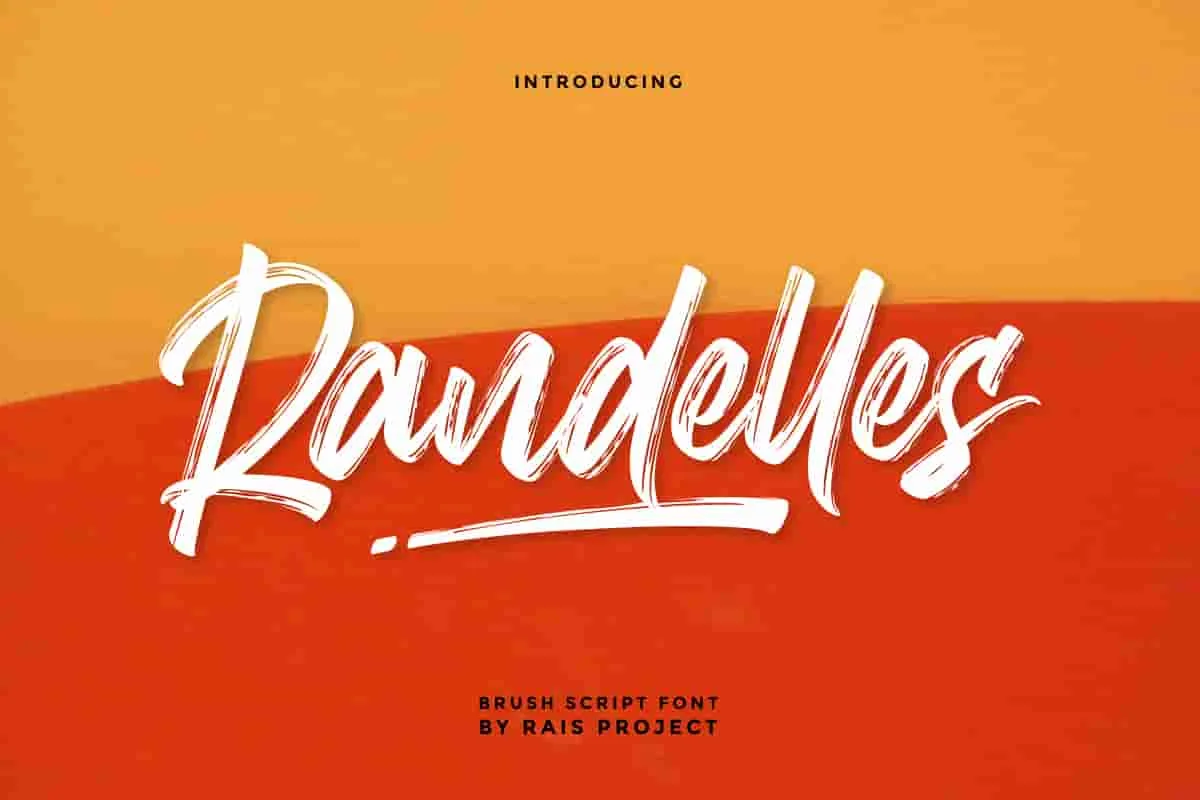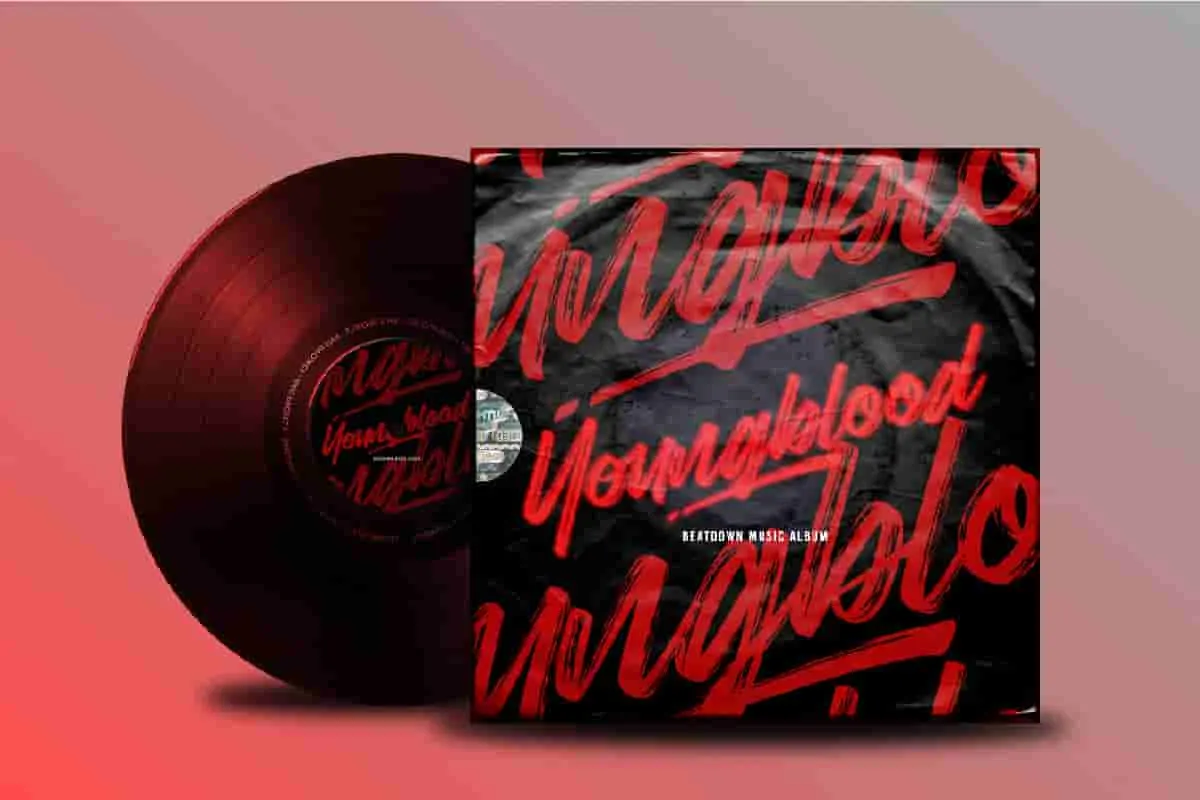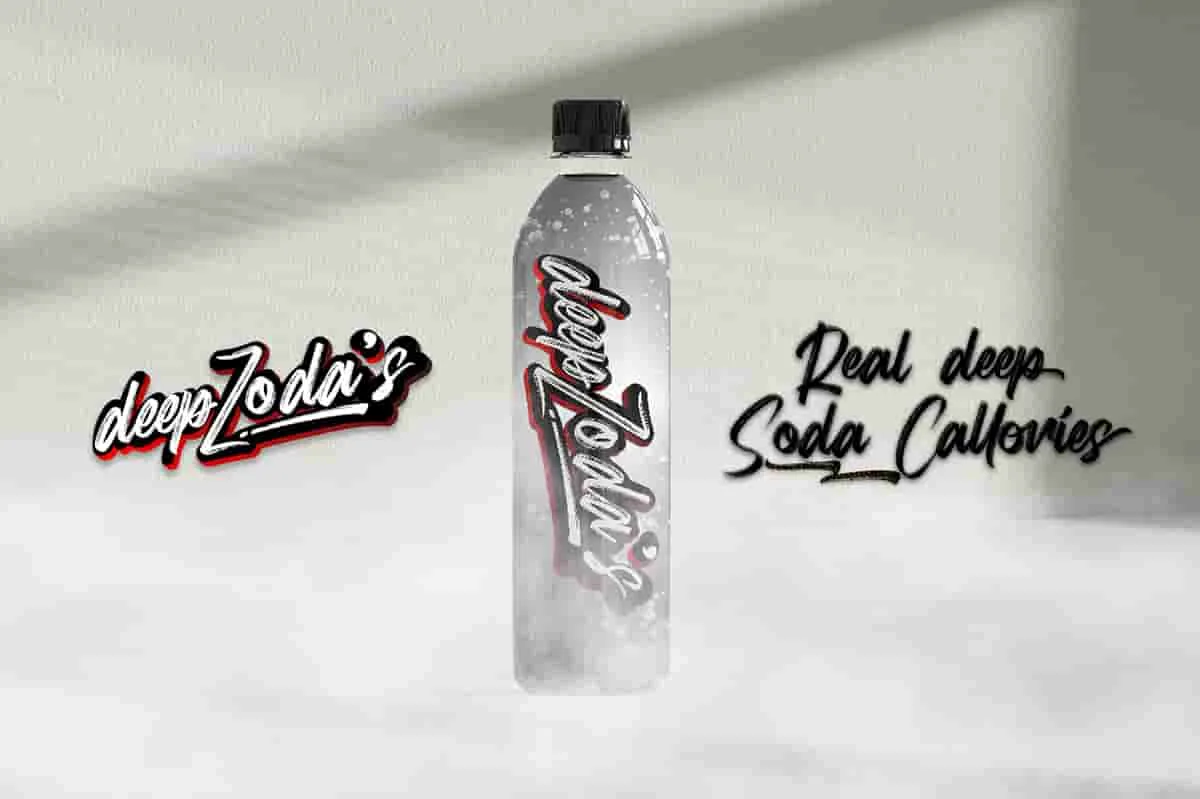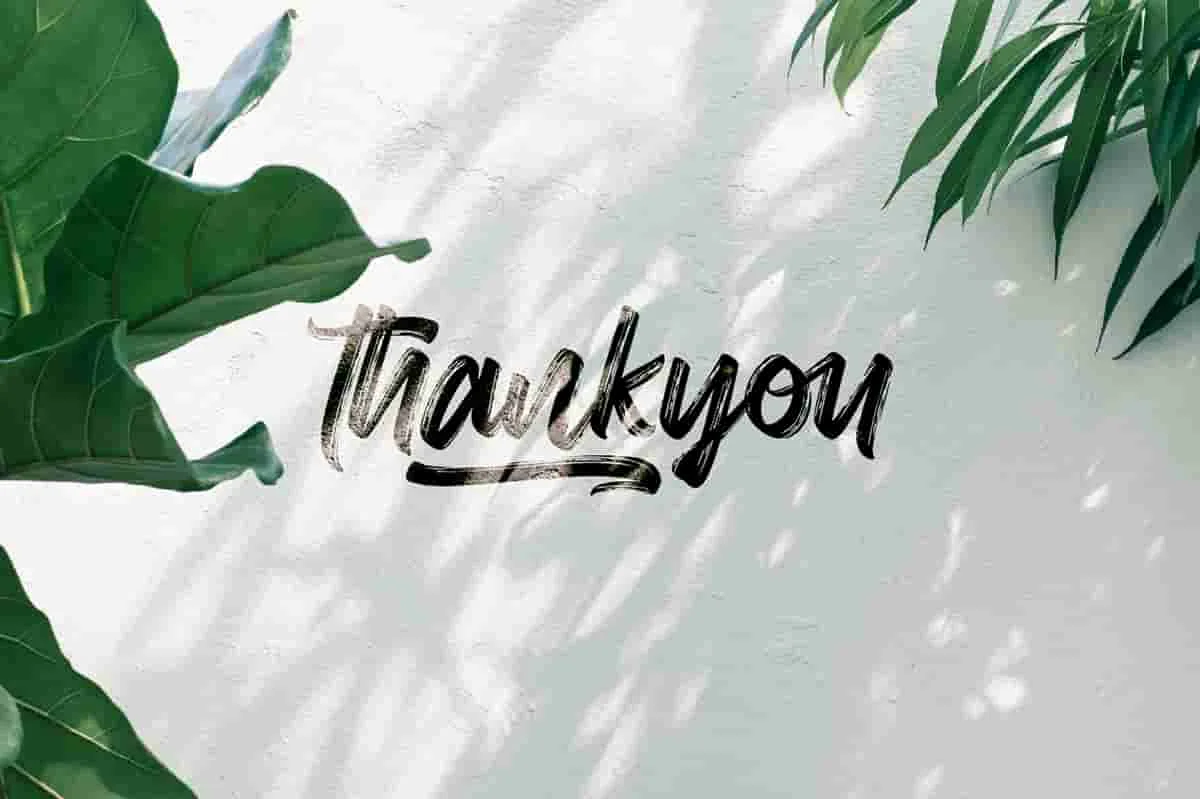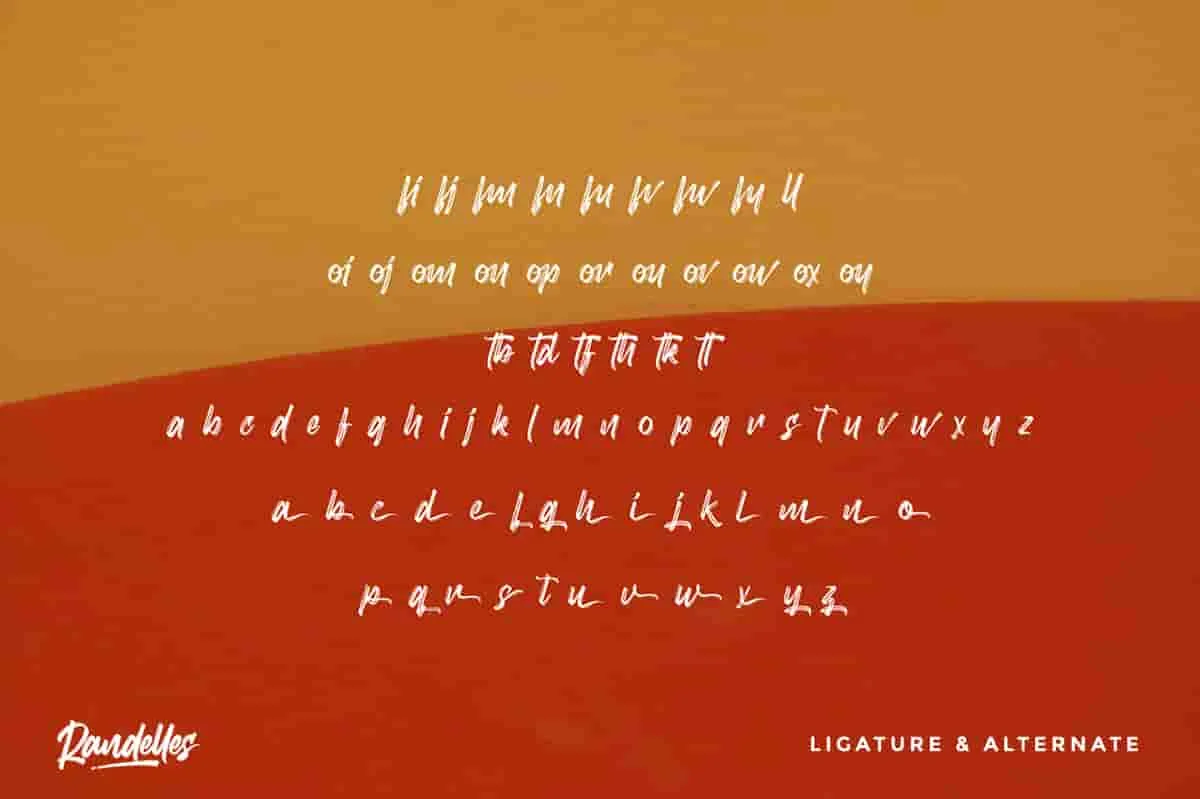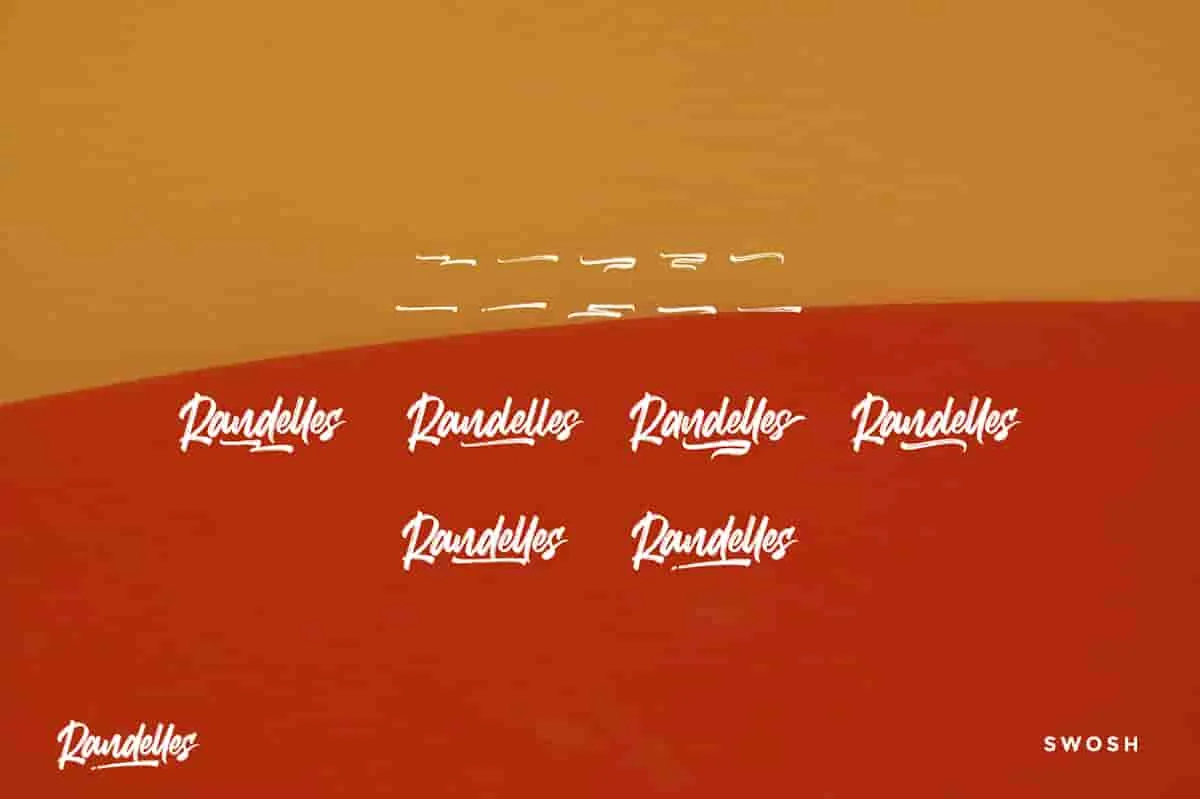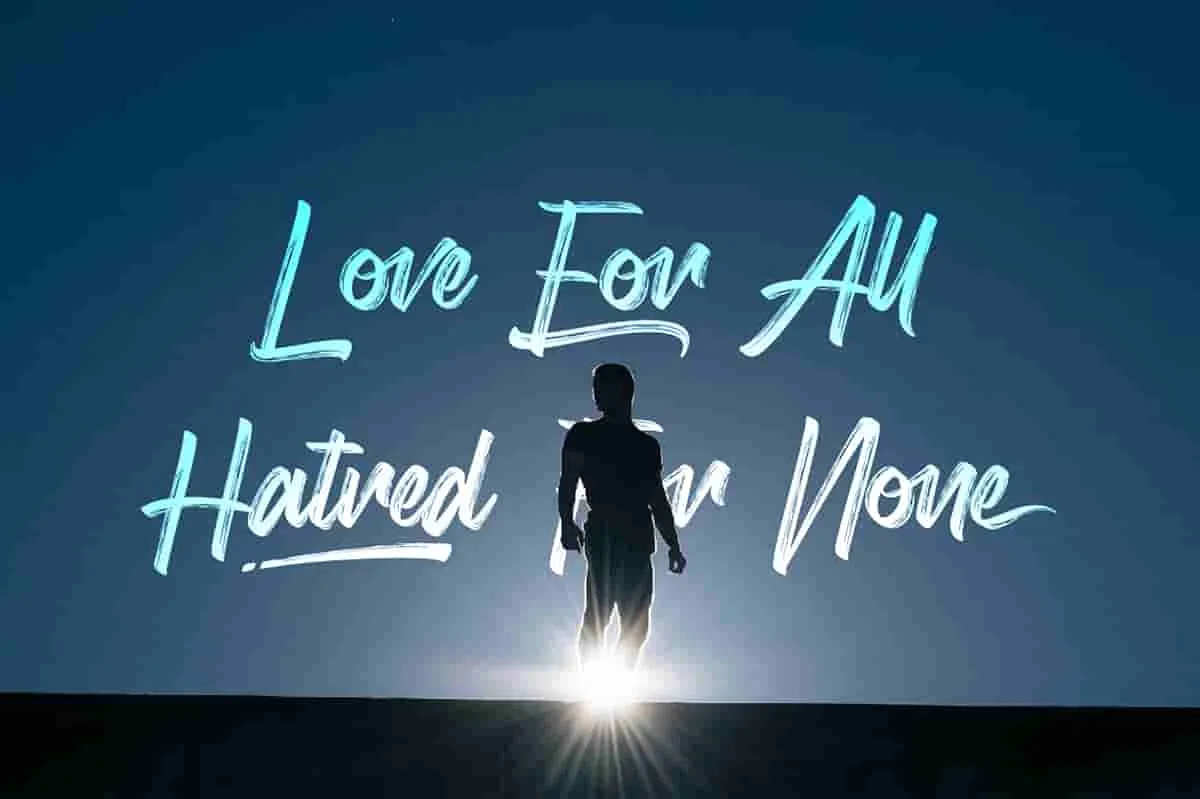
Randelles Font is a rough classic brush font with exclusive style. You can see the demo font below. Meet Randelles Brush Font, a modern brush script that combines elegance with raw, hand-crafted energy. With sweeping strokes and natural texture, Randelles adds a confident, artistic touch to your designs. Every letter flows smoothly, giving your text a dynamic, personal feel—perfect for standout branding,You can also input any word you want so you can see what it will look like :
Randelles Font remotely made in Bandung and Garut, Indonesia.The font handcrafted for any your special projects including : headlines, promotion, events, branding, advertising, magazine, signage, invitation, stationery, social media posts, label, or and any projects that need unique strong style. The theme/industries of this font Vintage, Horror, Movie, Game, Magazine, Music, Video, Sports, Racing etc Randelles Font includes full set of AWESOME uppercase letters, numerals, a large range of punctuation and ligatures. With a unique textured effect. You will get: